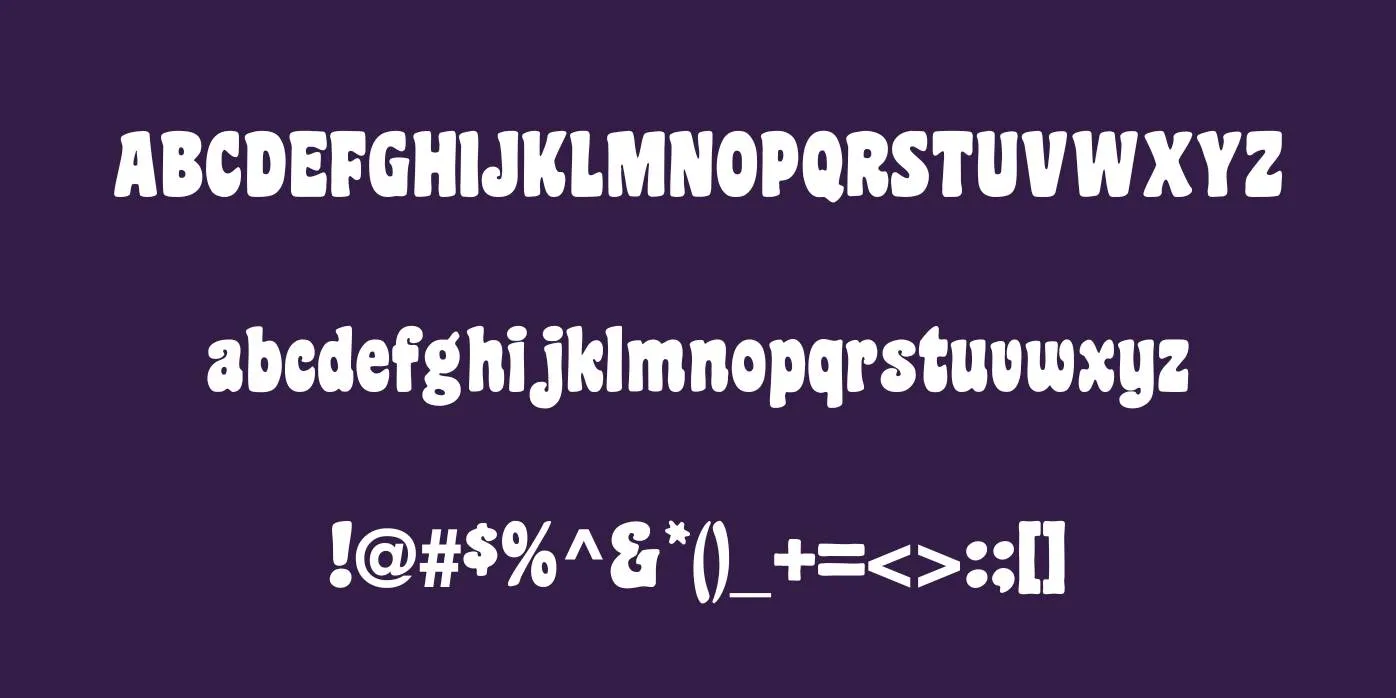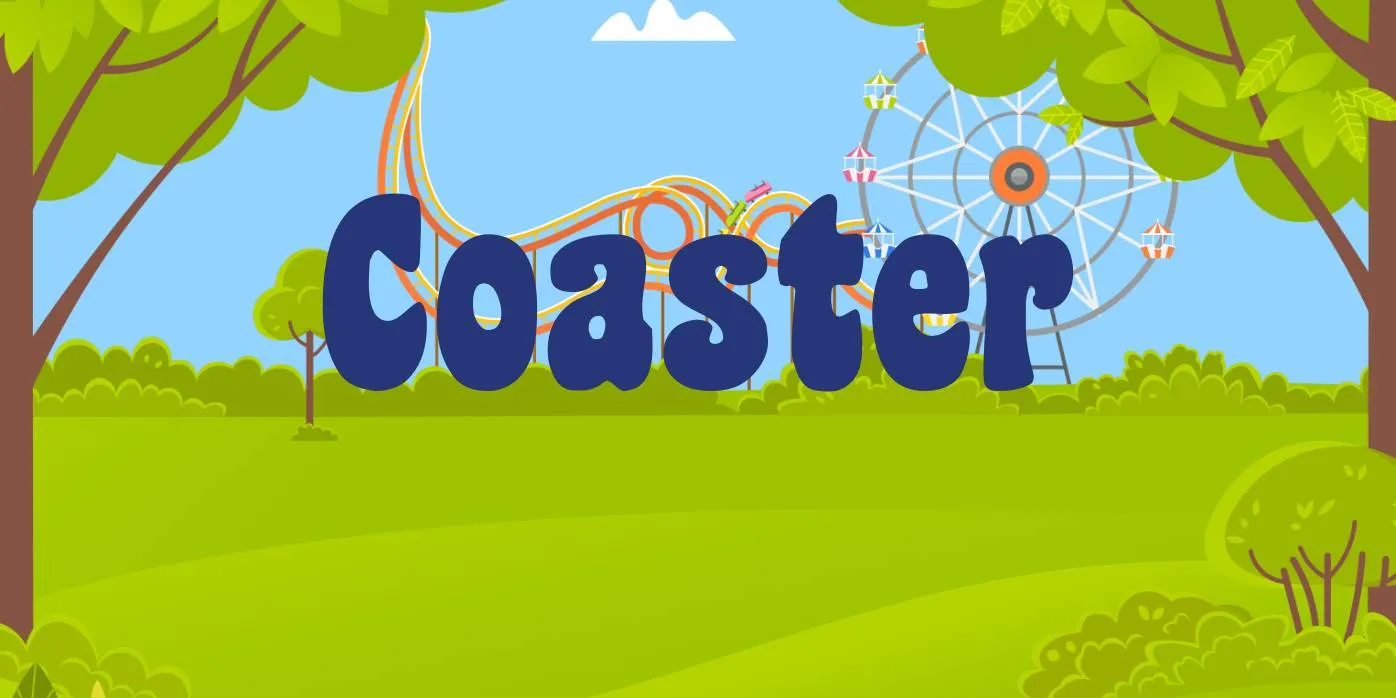
Coaster Font
Here we discuss detailed information about Coaster Font. This is a very stylish fancy font. It was designed by Dieter Steffmann. The pattern nature of this font is Bold and the posture of the font is upright.
It has 225 characters, 204 glyphs, and 1000 units per Em. Its pitch is not monospaced and the symbols set followed by this font is Windows 3.1 ANSI. It supports an online generator tool also through which you can change simple text into a stylish look without downloading it on your device. It can be paired with other fonts like yellow candy font to give a more attractive look to your projects.
This font supports file formats TTF (True Type Font)and OTF (Open Type Font). Usage This is a very amazing fancy font. It has characters, symbols, small letters, capital letters, symbols, punctuations, and special characters. It can be used for making so many projects.
Because of its strong and bold look, it is suitable for making headlines for any kind of project. It is currently very famous all over the world for use in brands and publications. You can also use this font for making banners and posters for any project. Logos of different brands can also be designed using this font.
Where can I use the Coaster font? This is an amazing fancy font that can be used for making so many projects. It has a very strong look which is perfect for making attractive projects like headlines or any projects related to display.